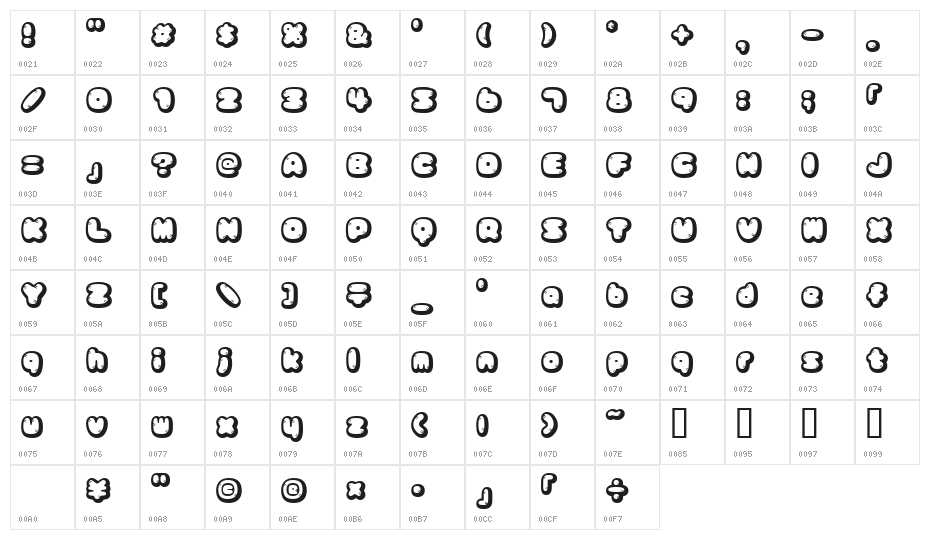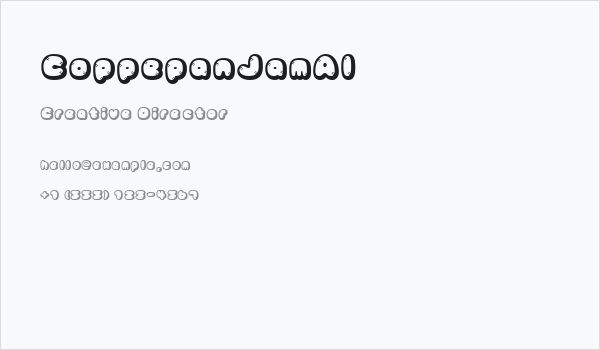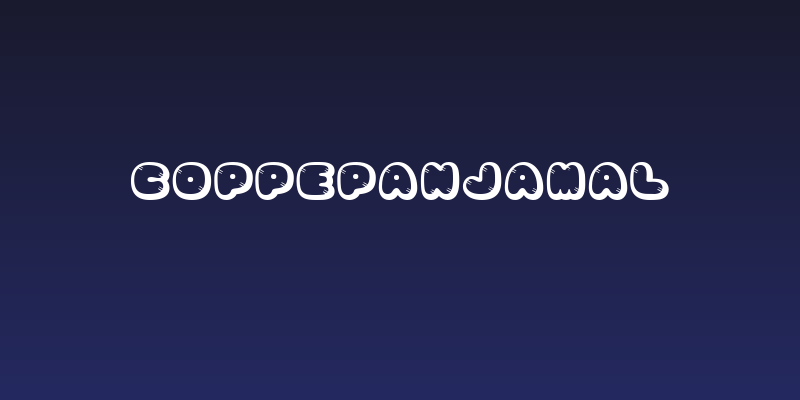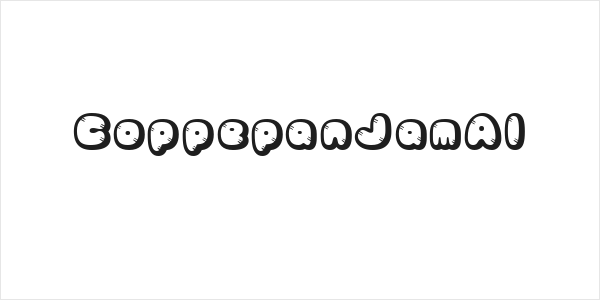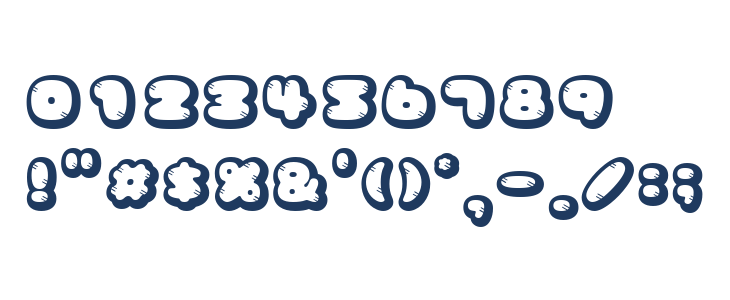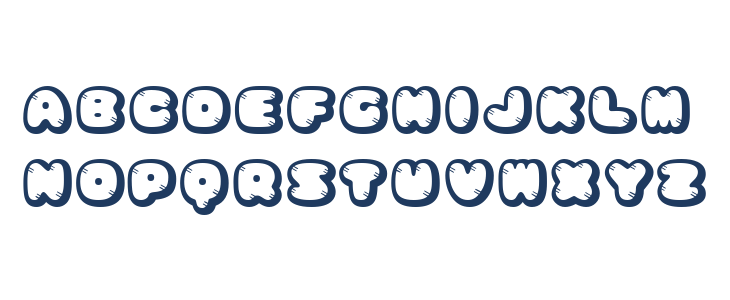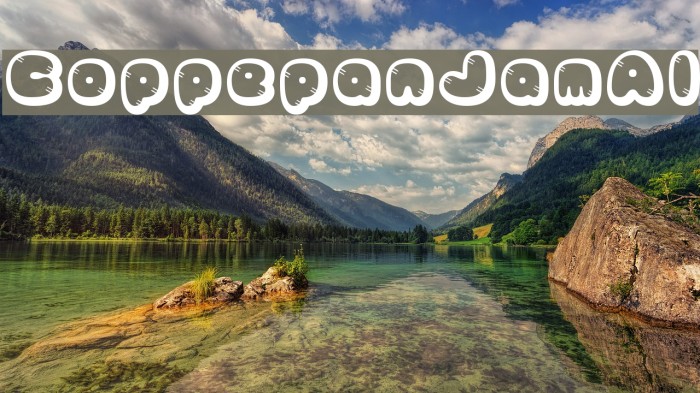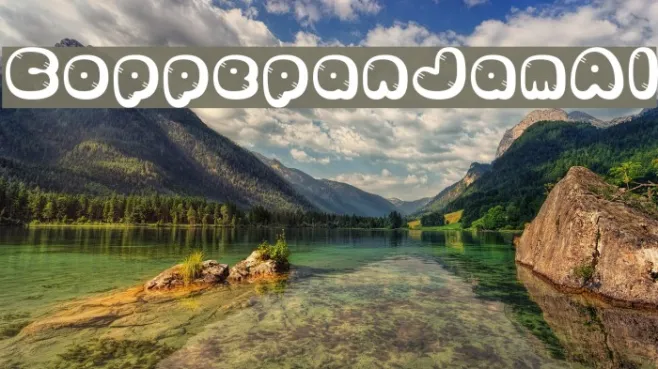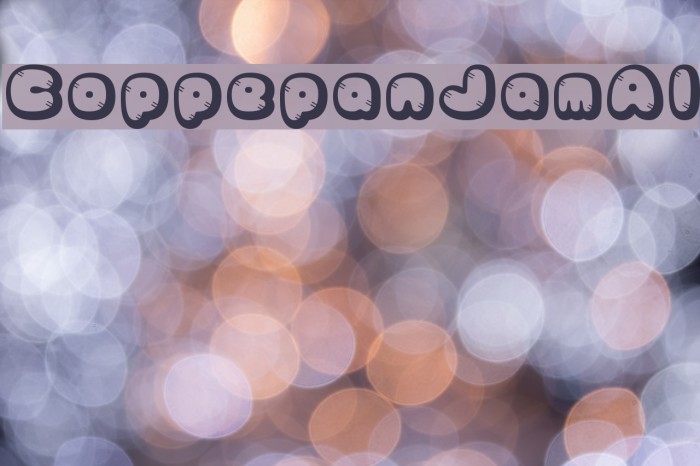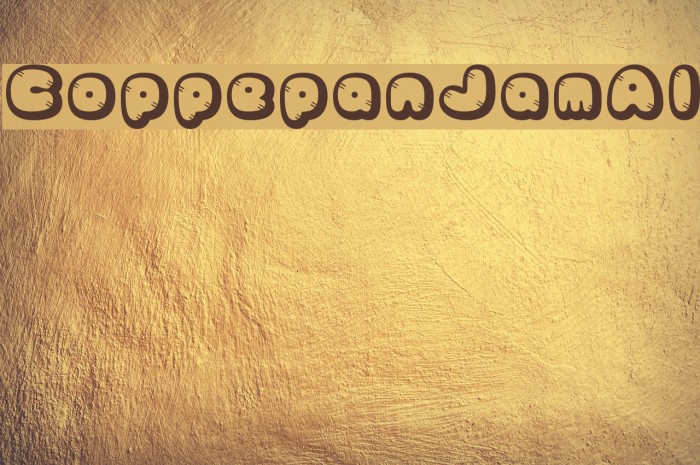
CoppepanJamAl Font
CoppepanJamAl Description
This playful and whimsical font features bold, rounded characters with a bubbly appearance. Each letter is enclosed in a thick outline, giving it a cartoonish and friendly vibe. The font's design is reminiscent of comic book styles, with exaggerated curves and a sense of fun. It maintains a consistent weight throughout, making it easy to read while still being visually engaging. The characters are evenly spaced, contributing to its legibility. This font is ideal for projects that require a lighthearted and informal touch.
| Overall Style | Playful, Cartoonish |
| Proposed Projects | Perfect for children's books, comic strips, playful branding, and party invitations. |